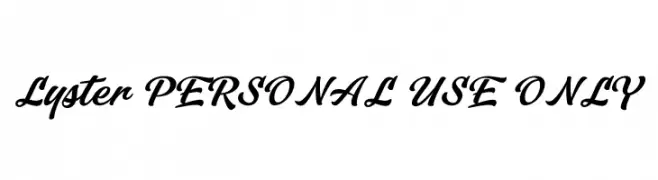
A playful, elegant handwritten script with flowing, cursive strokes.
A graceful and elegant script font with a handwritten style.
An elegant, high-contrast script font with flowing, cursive characters.
A bold, expressive script font with high contrast and flowing cursive letters.
A bold, flowing script font with interconnected characters and elegant curves.
An elegant script font with intricate swashes and decorative flourishes.
A lively, handwritten font with fluid, dynamic strokes and a casual, informal style.